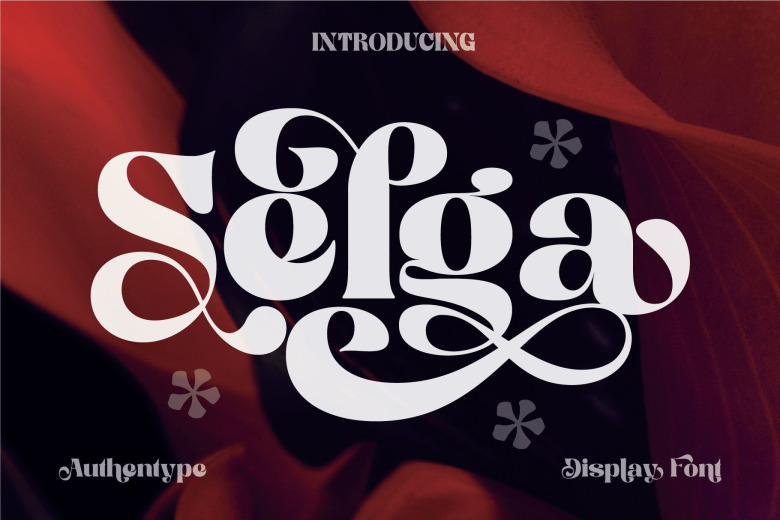
Selga Font
Selga is a thick lettered and stylish serif font. Whatever the topic, this font will be a wonderful asset to your font library, as it has the potential to enhance any creation.